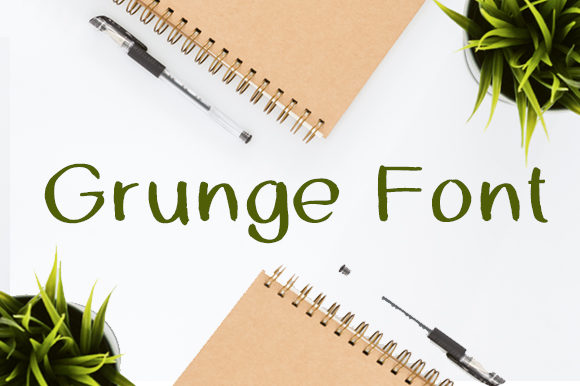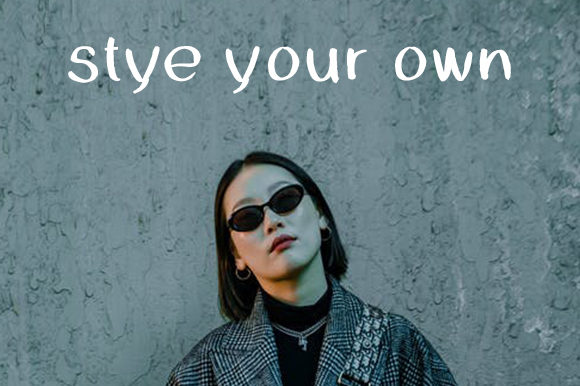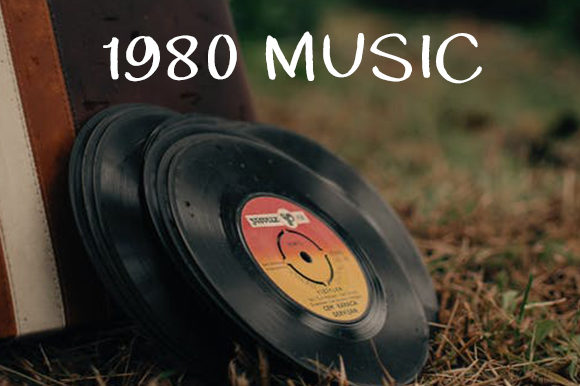
Grunge Font
About Grunge Font
Grunge is a simple and neat script font. Add this font to your creative ideas and notice how it will make them stand out!